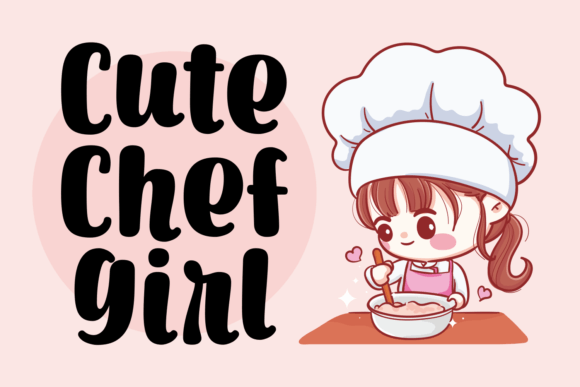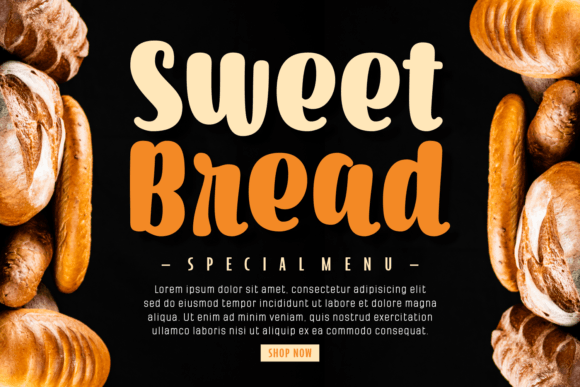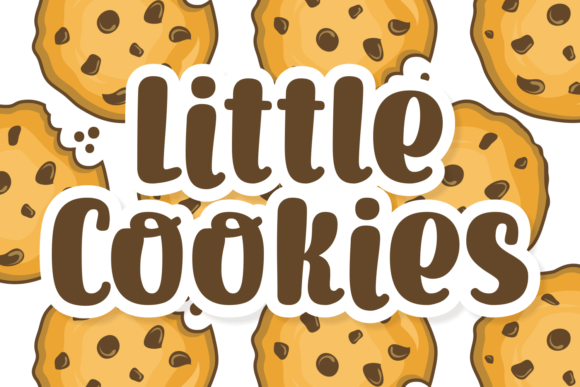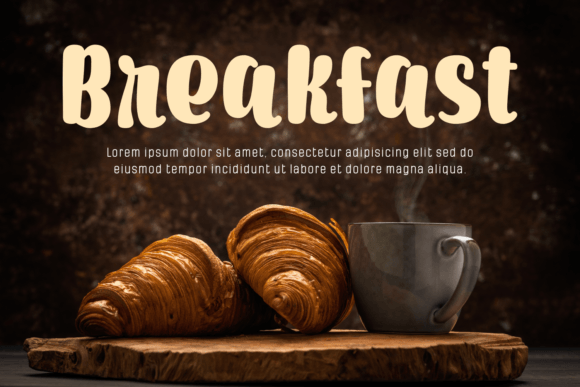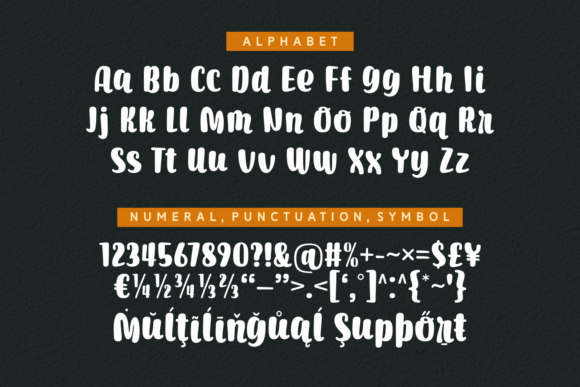
When Words Become Treats
You know that feeling when you stumble upon the perfect font for your next design project? It’s like finding a hidden treasure that makes your creative heart skip a beat. For designers, the right font can make all the difference between a good design and a great one. And today, we’re excited to introduce you to a font that’s sure to bring a smile to your face – the delightful Bread and Milky Font.
This sweet and adorable script display font is perfect for adding a cheerful and friendly vibe to your designs. Whether you’re creating food packaging, coffee shop or restaurant menus, stickers, or baby onesies, the Bread and Milky Font is sure to bring a joyful touch to your work.
As a valuable asset for designers, the Bread and Milky Font offers endless possibilities for creative expression. Its playful and whimsical nature makes it an ideal choice for projects that require a lighthearted and approachable tone.
Bread and Milky Font Key Features
- Font Family: Bread and Milky is a unique, hand-drawn font family with a variety of styles.
- Unique Characteristics: Bread and Milky features a distinctive, hand-crafted look with subtle imperfections, giving it a warm and inviting feel.
Bread and Milky Font Review
I recently had the chance to work with the “Bread and Milky Font” and I must say it’s an interesting combination of styles. ✨ One thing that works well is the mix of serif and sans-serif elements, which creates a unique and eye-catching effect. The font is perfect for creating a playful and whimsical atmosphere in any design project.
The font also comes with a range of ligatures and alternates that add to its charm. ✨ These extra details can help to create a more polished and professional look, especially in titles and headings. Additionally, the font is highly customizable, allowing you to adjust the spacing and line height to suit your design needs.
- ⚠️ Inconsistent weight: The font’s weight can be inconsistent, which may affect the overall design. Some letters may appear thicker or thinner than others.
Overall, I think “Bread and Milky Font” is a great choice for designers who want to add a touch of personality to their projects. While it has some limitations, the font’s unique style and customization options make it a great value for the price. I would definitely consider using it again in the future.
The Bread and Milky Font is ideal for use in various design projects, including:
– Food and beverage branding
– Children’s book illustrations
– Whimsical advertisements
– Playful blog posts
Alternatives to Bread and Milky Font
Great Vibes is a beautiful, elegant script font that is perfect for adding a touch of sophistication to your designs. It’s ideal for use in logos, invitations, and other high-end branding materials. Great Vibes is more elegant and refined compared to Bread and Milky Font, which is more casual and playful.